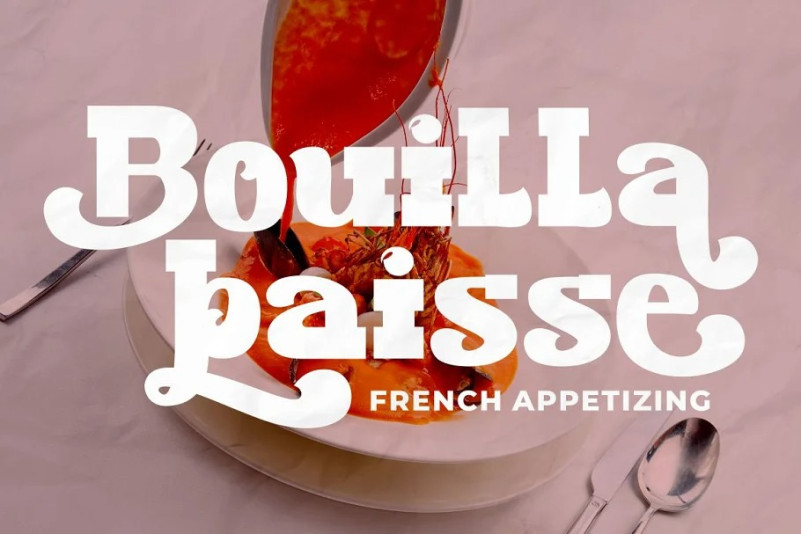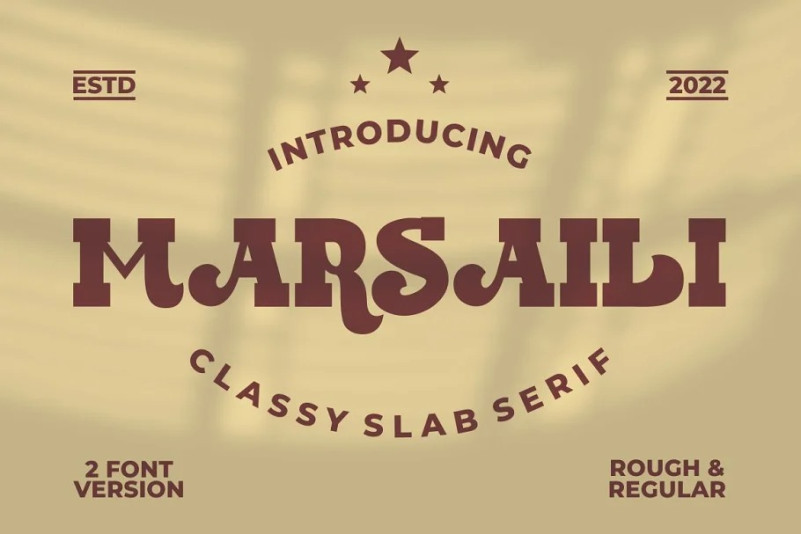
Marsaili Font
Marsaili Slab Serif Font is very versatile font that works great in bold serif. Helps to create layout design in 60s or 70s design projects. Marsaili is a classy vintage serif font with beautiful ligatures, tons of alternative glyphs and multilingual support. Marsaili’s bold, groovy, clean and unique with vintage fell. Come with open type feature with a lot of alternates, its help you to make great lettering. Marsaili best uses for heading headlines, cover, poster, logos, quotes, product packaging, merchandise, social media & greeting cards and many more.